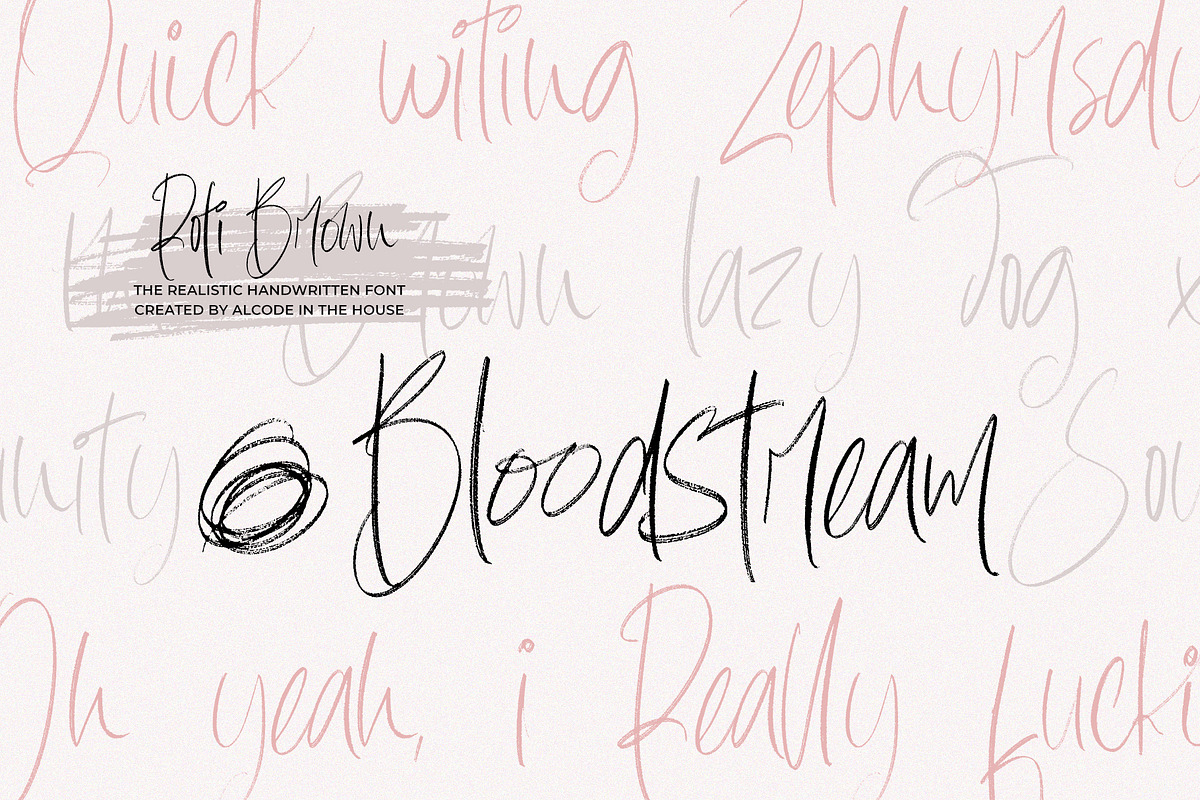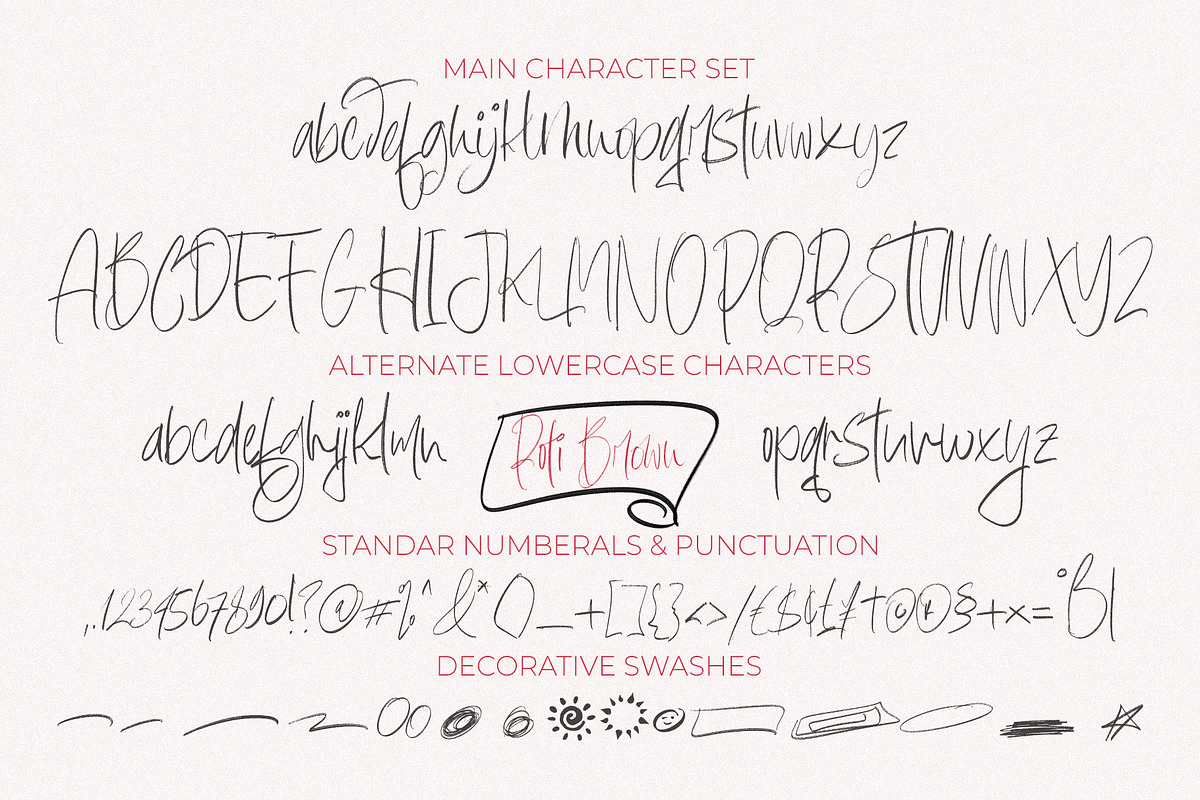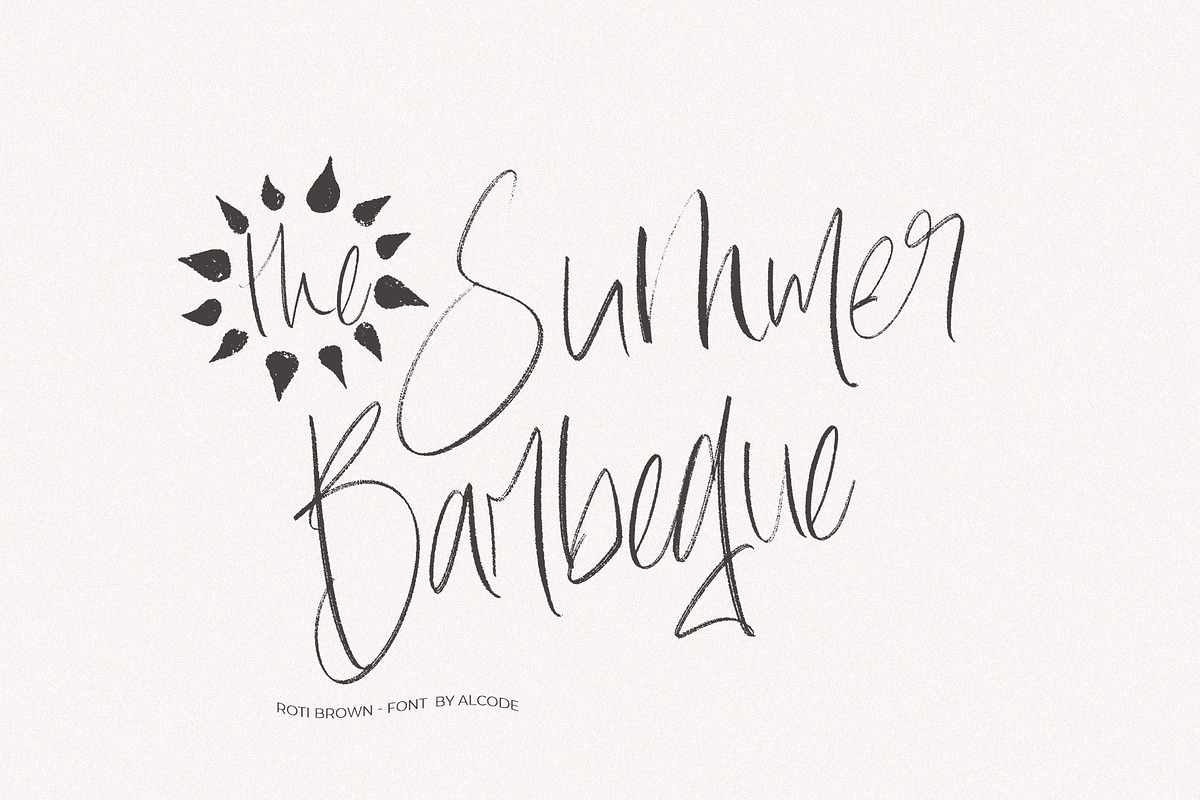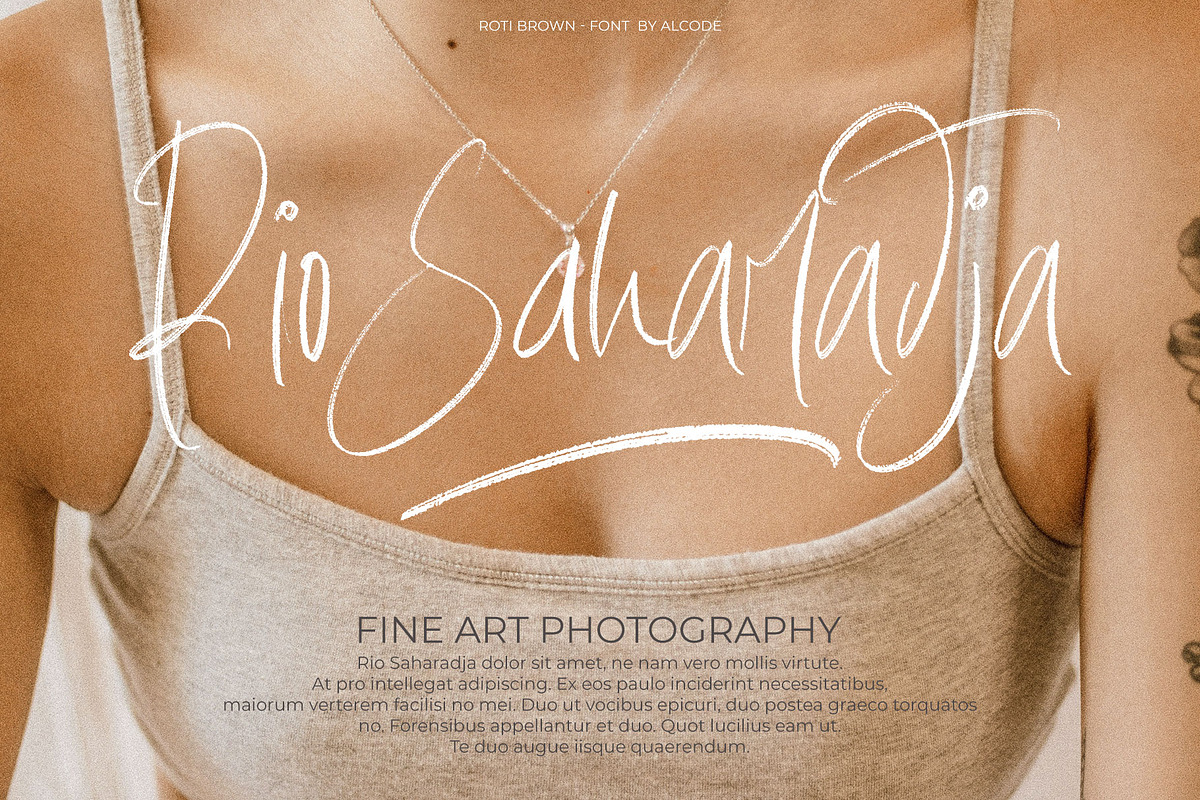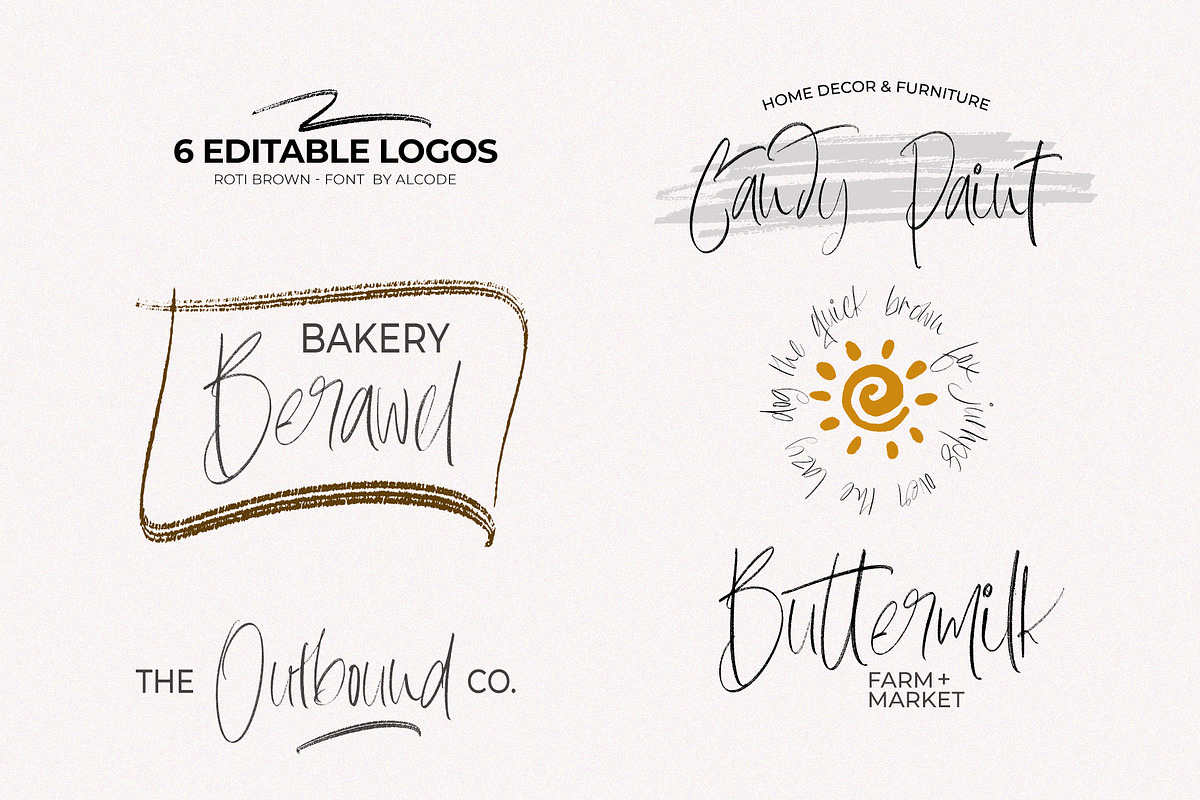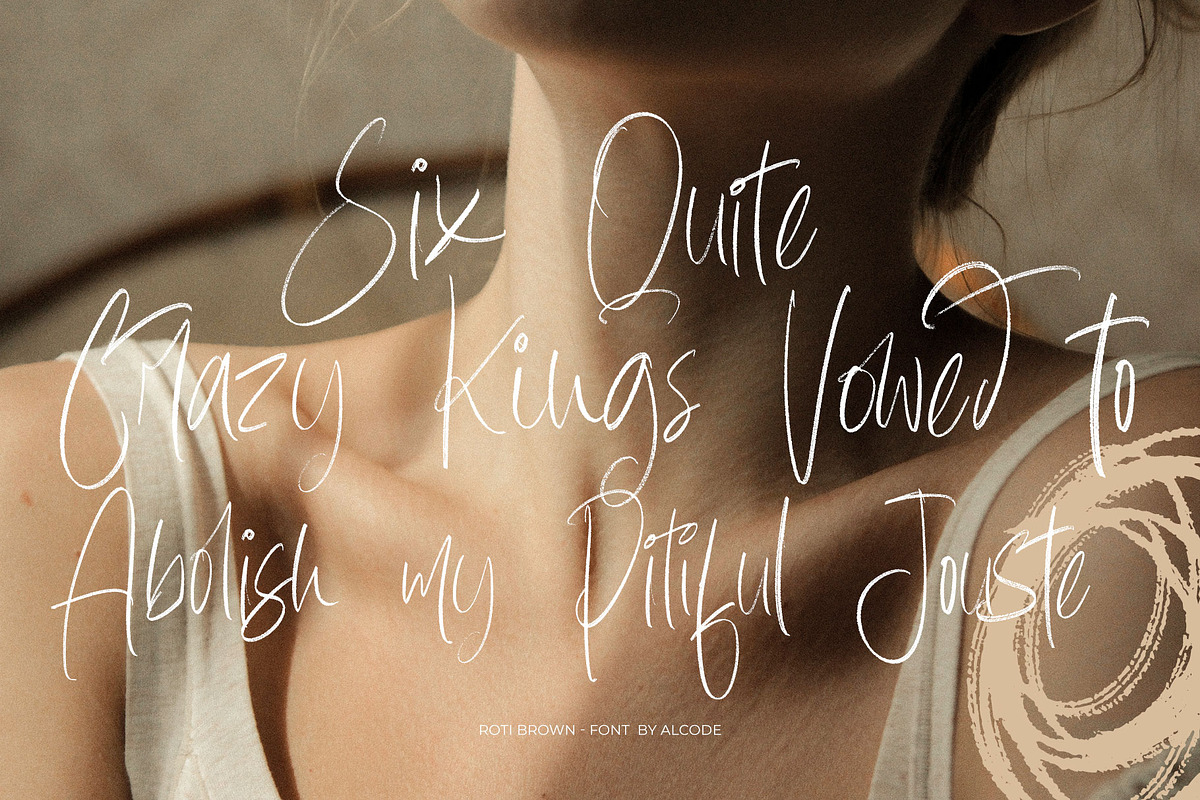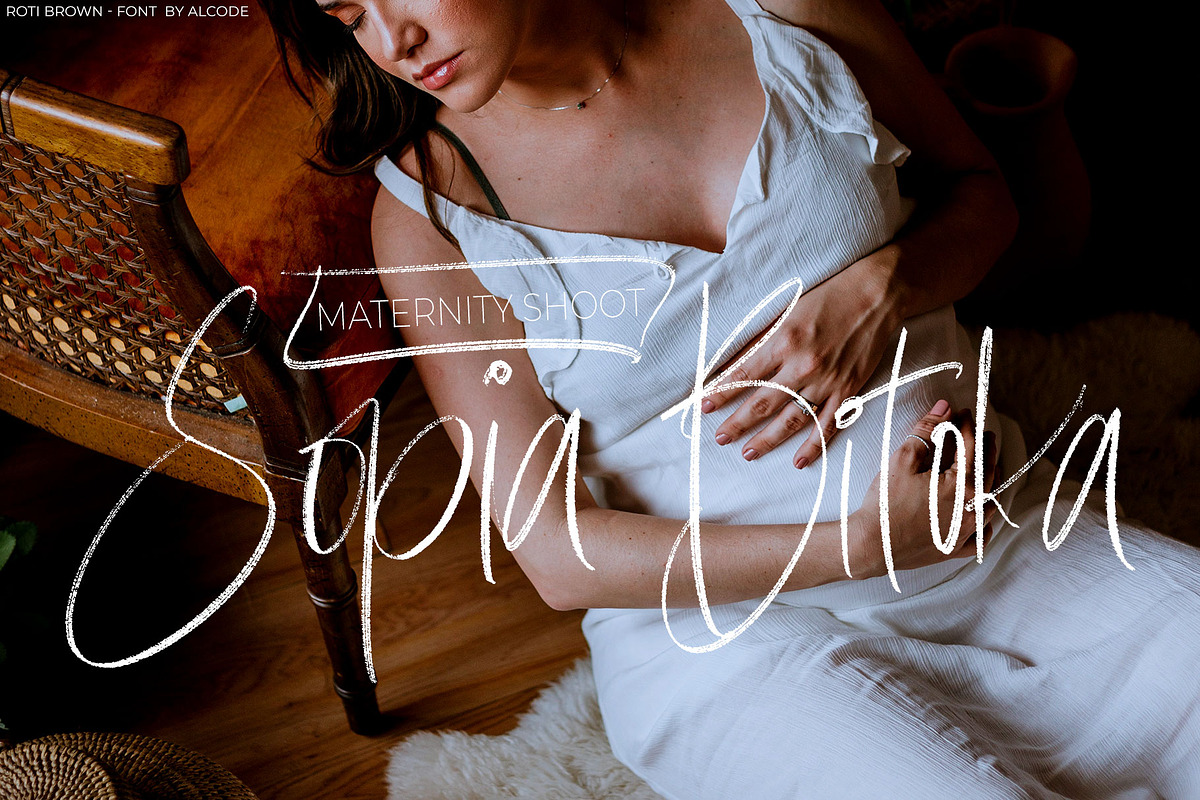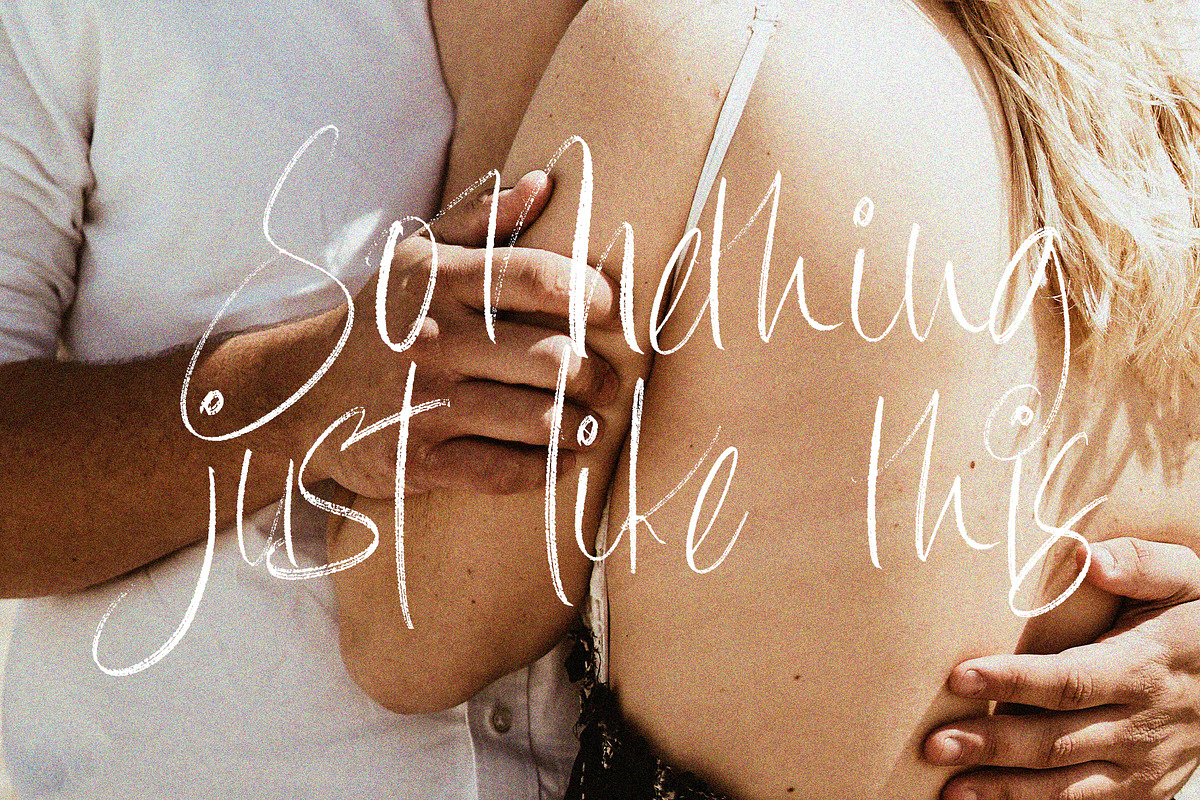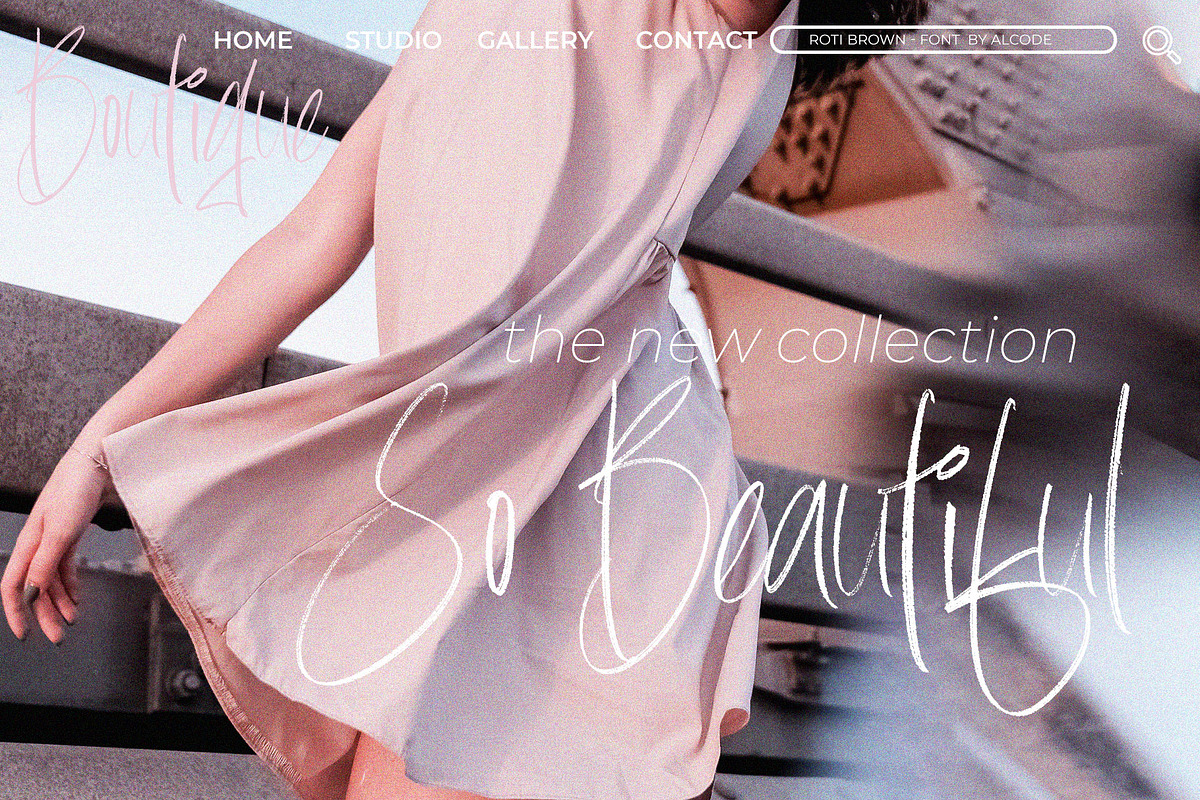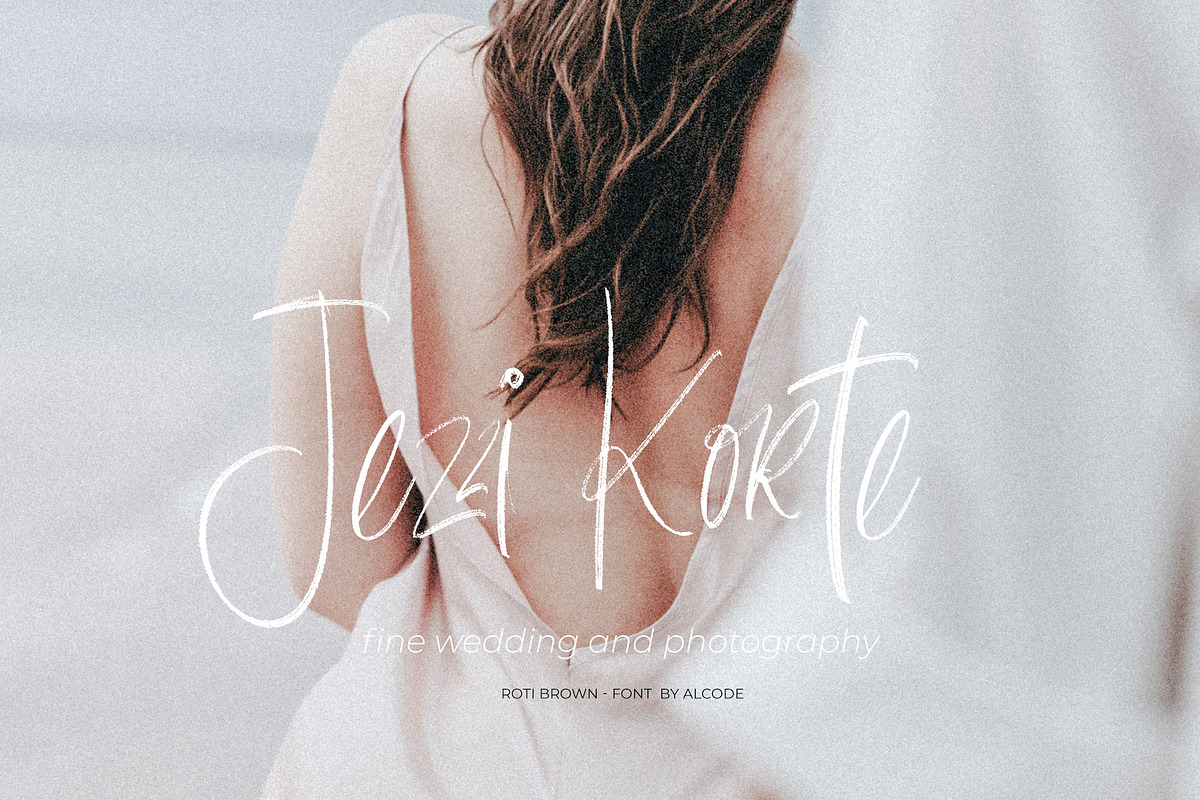
Roti Brown With 6 Editable logo
Roti Brown is an realistic handwritten font inspired by natural brush typography. Written in rapid motion using a slightly dry brush pen. This will give you a fresh and elegant design. Roti Brown comes with uppercase and lowercase letters, large sets and small sets, numbers, alternative styles, Extras Swash And 6 Editable Logos for several lowercase characters are also available that make your text and design more attractive.